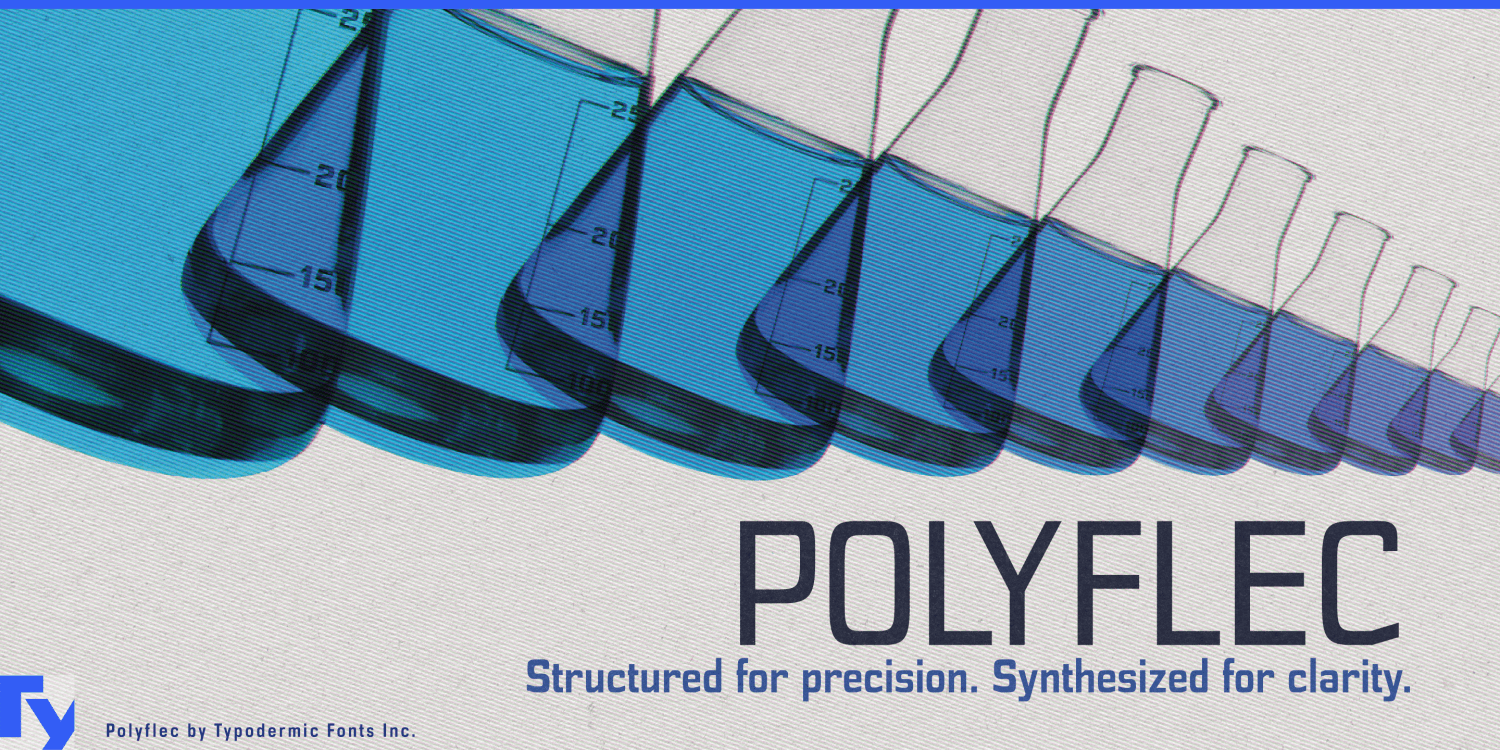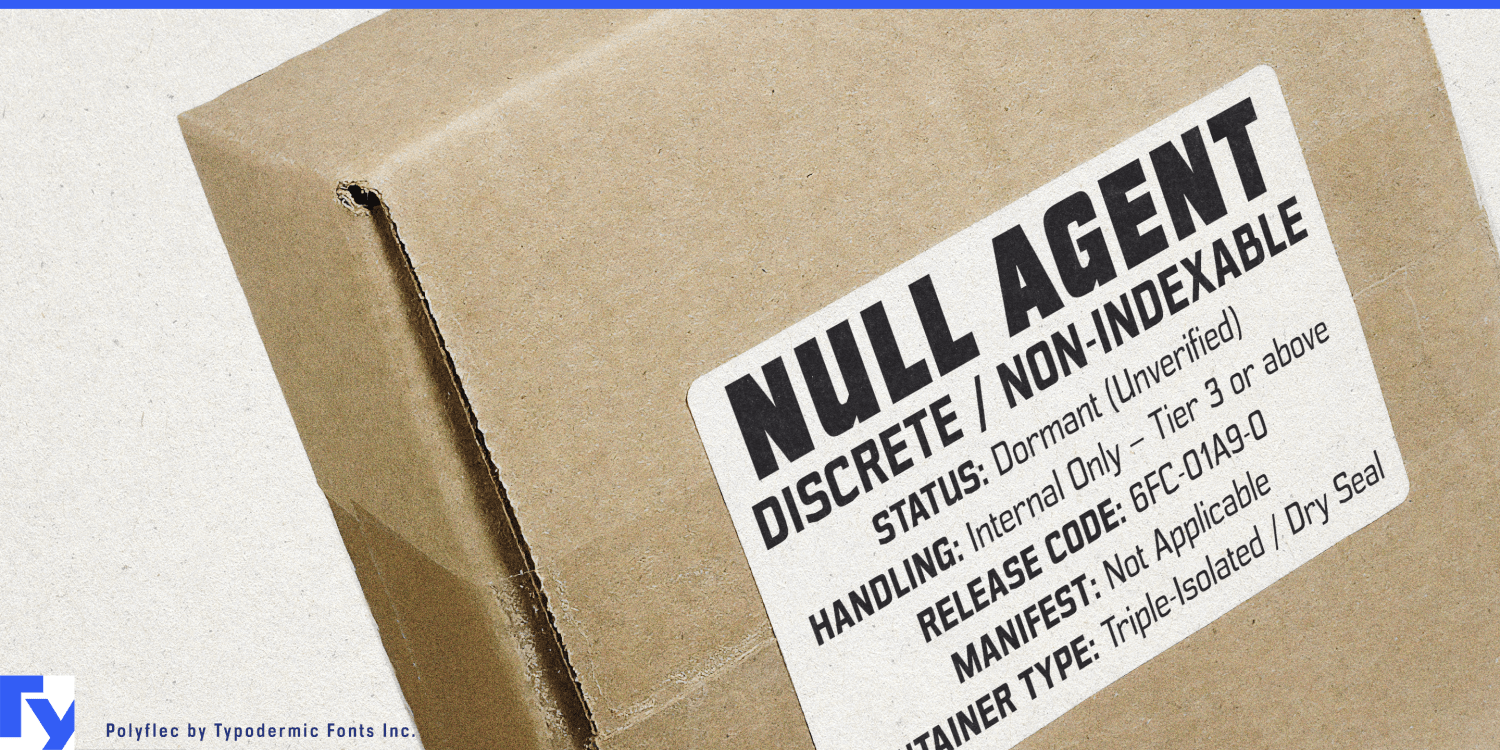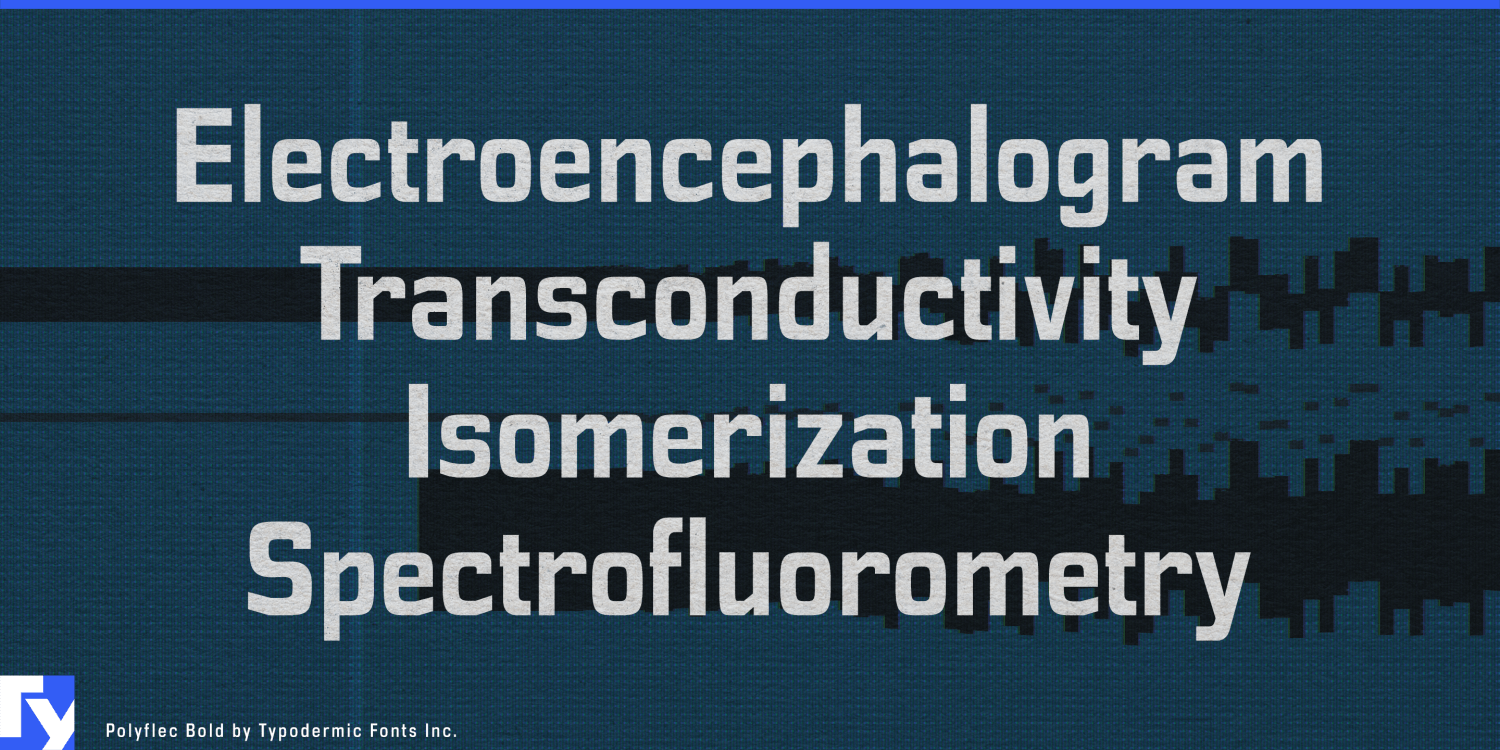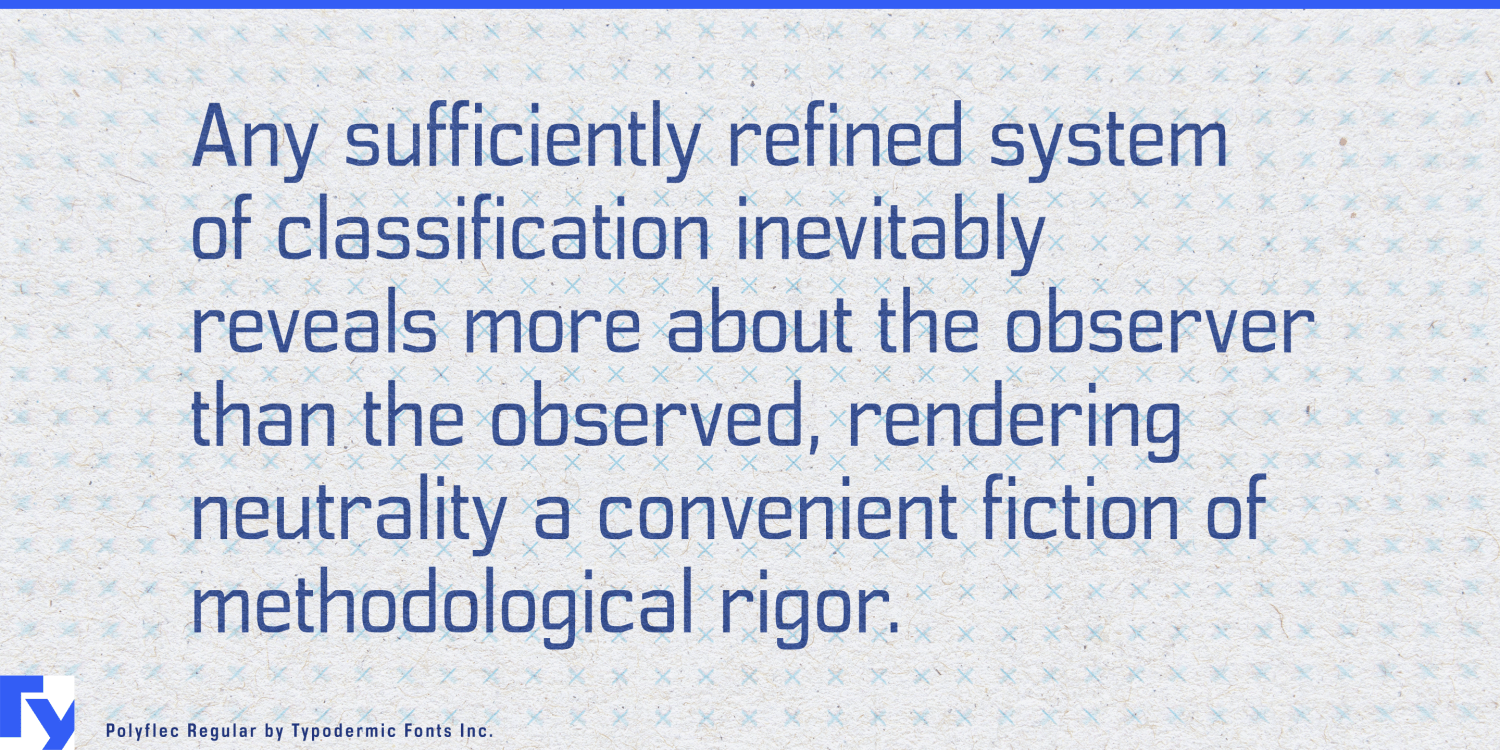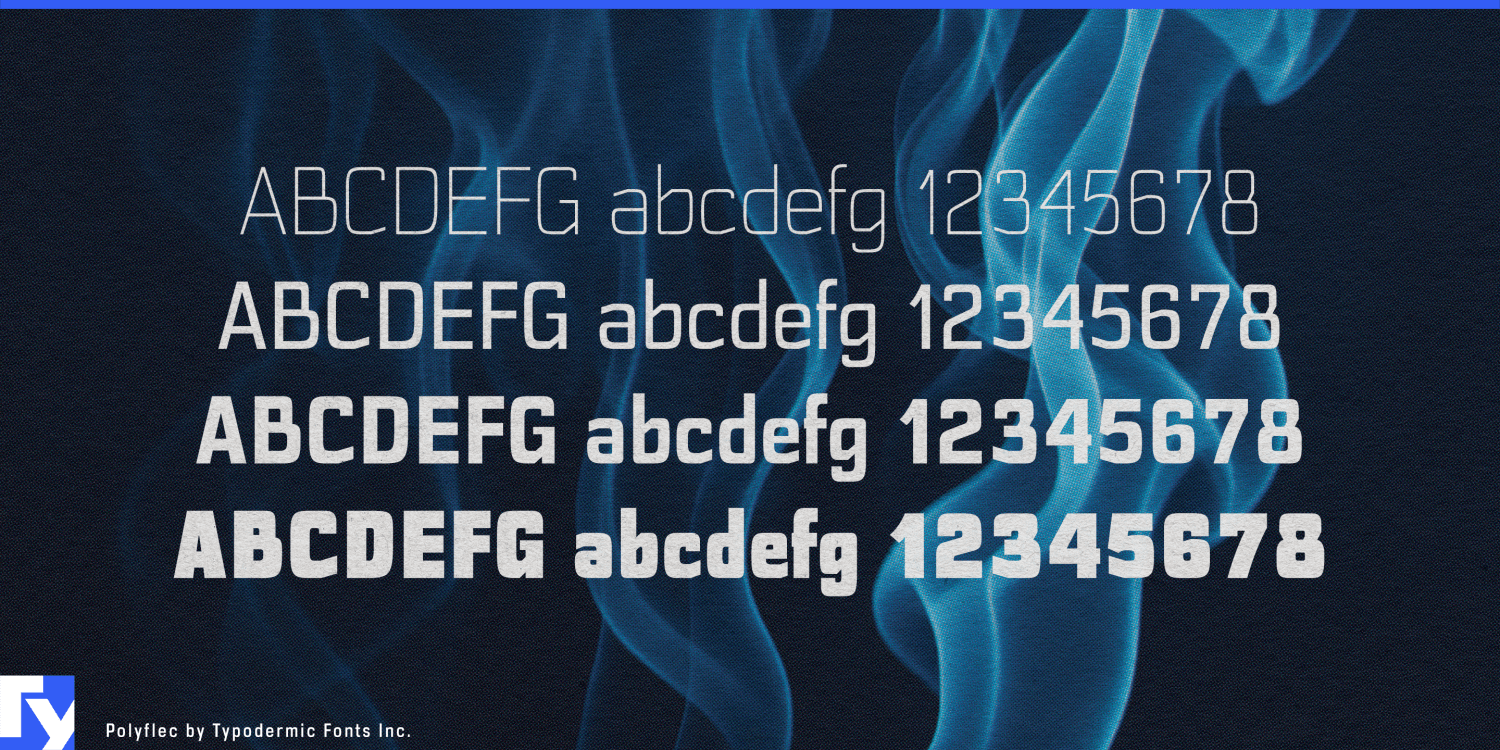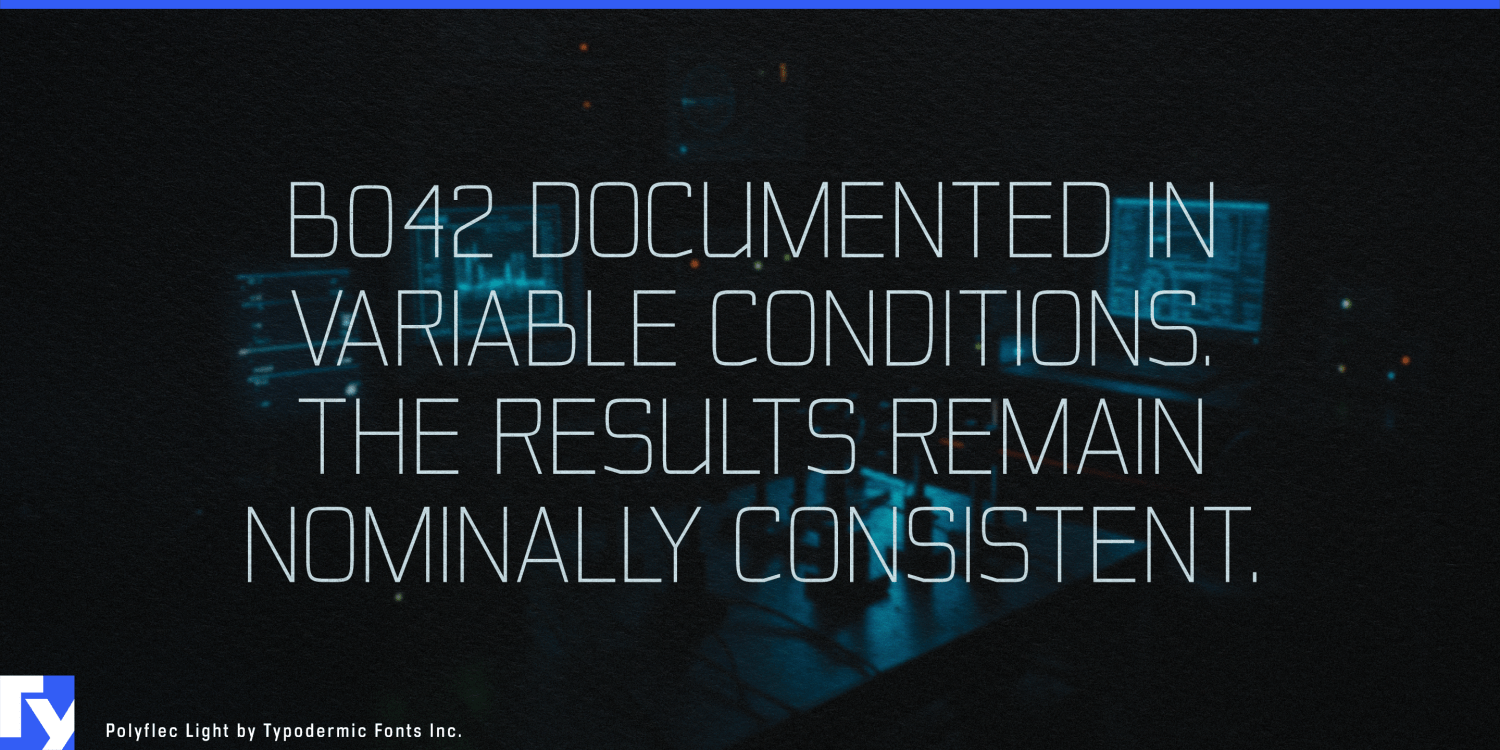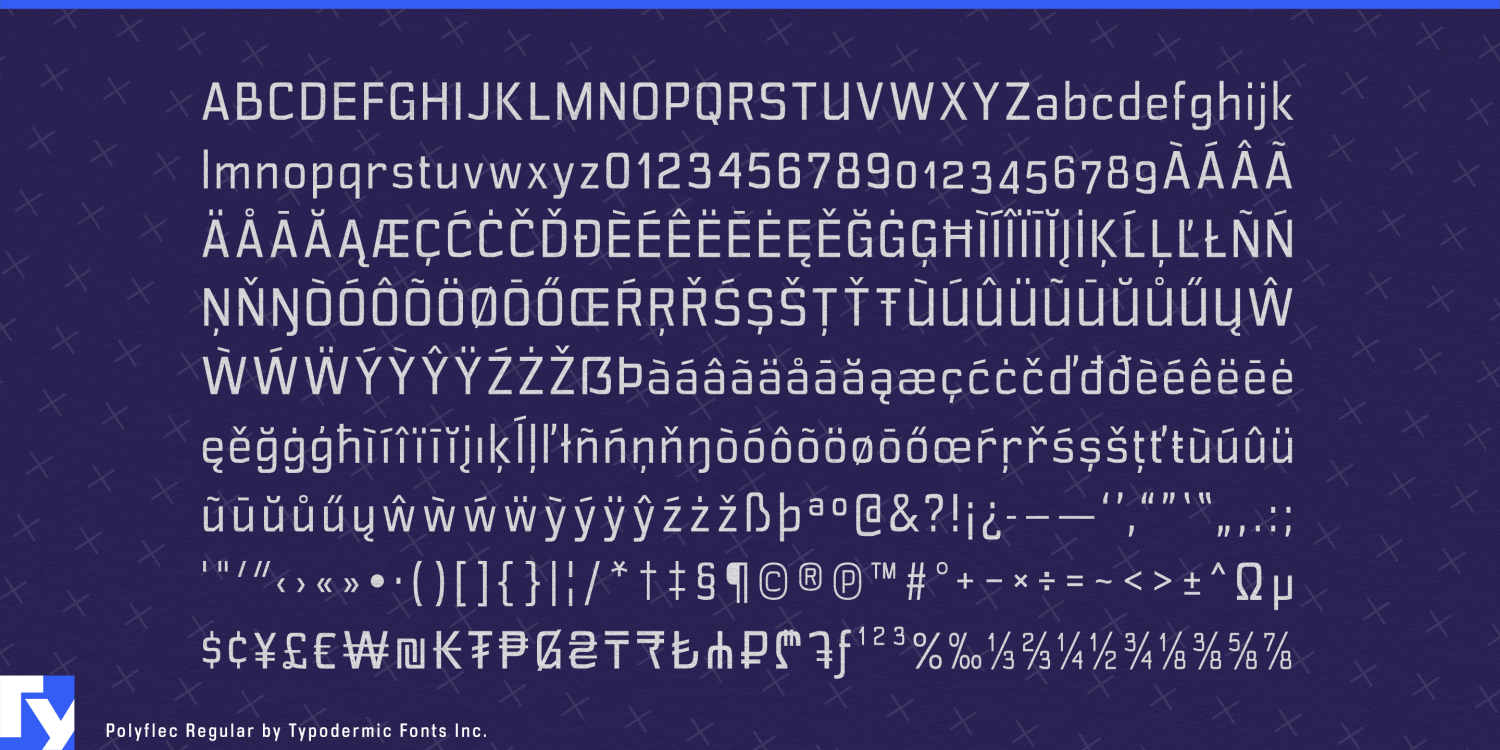
Polyflec
Scientific language has a way of taking over a layout. Compound names, classifications, and process descriptions grow longer than the spaces prepared for them. Polyflec gives that terminology a compact, recognisable shape instead of treating it as something to shrink and hide.
Its moderately narrow letterforms are distinctly square, with softened corners and open counters tempering the geometry. Long words form stable blocks, while the lowercase retains enough variation for labels and short passages. The technical character is visual; Polyflec recalls laboratory instruments, sample containers, chart grids, and equipment housings without imitating any particular device.
Research conferences, symposium websites, scientific posters, and university outreach campaigns can use Polyflec for titles, programme sections, diagram headings, figure annotations, and classification labels. Terms such as electroencephalogram and spectrofluorometry can occupy a headline while preserving the measured rhythm of the design.
The same qualities suit biotech companies, analytical-instrument manufacturers, diagnostic brands, and laboratory suppliers. Product names, equipment families, assay-kit packaging, reagent labels, and model identification gain a scientific character that sits naturally beside graphs, molecular imagery, technical photography, and fields of sample codes. Science centres, planetariums, and environmental-data exhibitions can extend that language across display titles, interactive prompts, and concise explanatory text.
Polyflec is not intended to disappear into dense book text or carry pages of continuous reading. Its squarish construction is meant to remain visible. Use it for headlines, terminology, labels, callouts, and short informational passages; pair it with a conventional text face for reports, articles, and lengthy explanations. Polyflec works where scientific language needs a visual identity as well as room for the words.